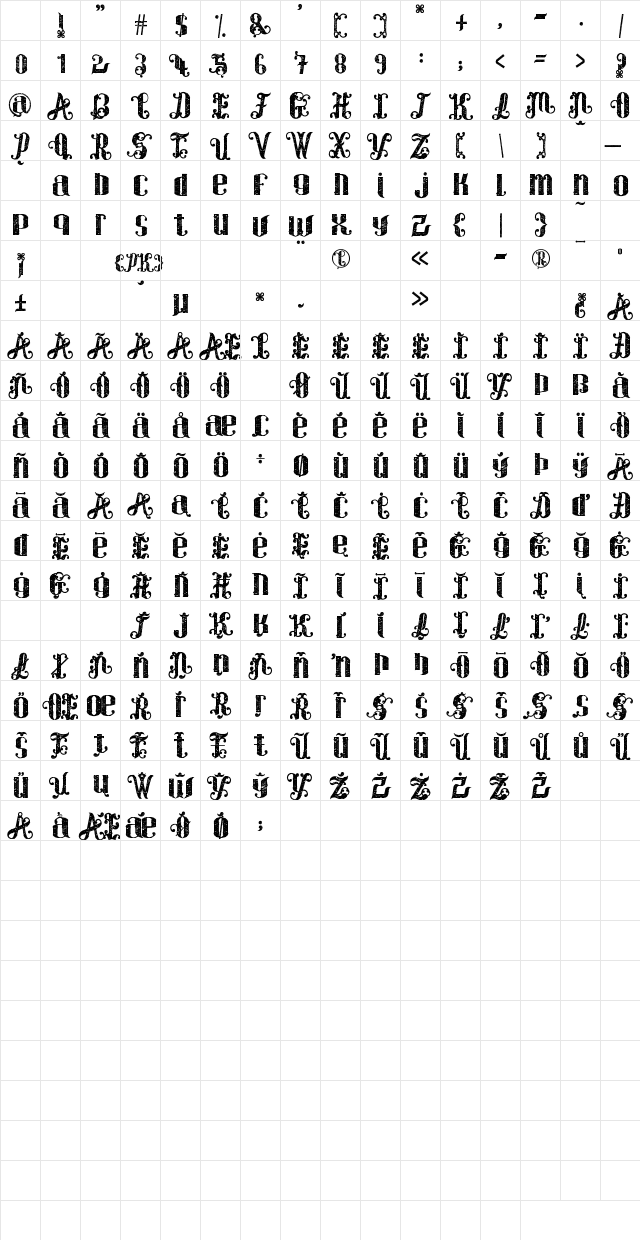
Complete For Winter Regular glyph index. Displaying only characters natively supported by For Winter Regular font.
For Winter is a composed and adaptable typeface that performs quietly and consistently across a wide range of design contexts.